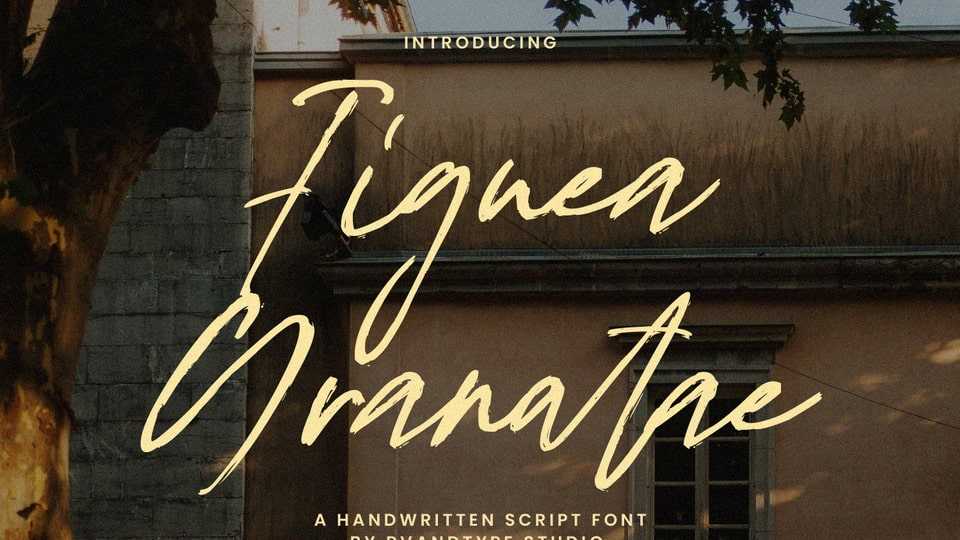
Download Figuea Granatae font, a handwritten script typeface that combines the charm of natural penmanship with a touch of modern elegance.
Designer: Rvandtype Studio